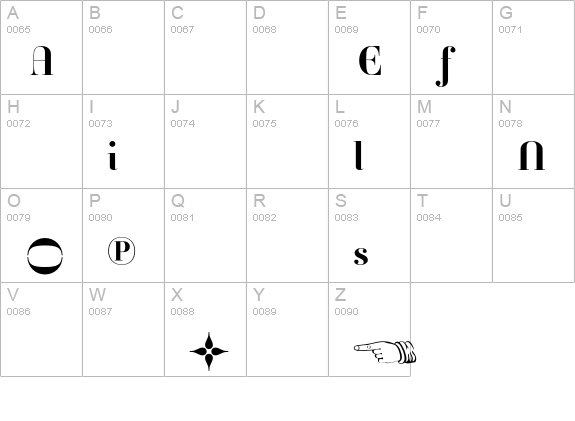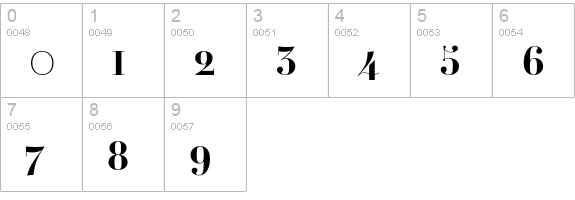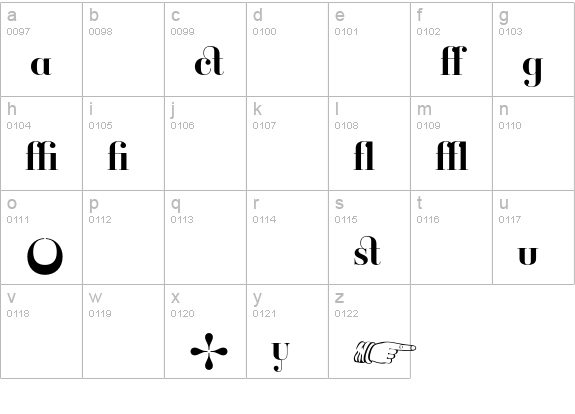
Ambroise Alternates Demi Font Details
Ambroise Alternates Demi is a sub-bold, structured variant in the Ambroise typeface family \xE2\x80\x94 well suited to sub-headlines and emphasised passages.
Ambroise Alternates Demi font exudes sophistication and elegance with its sleek and modern design. The bold and distinctive letterforms make a strong statement, perfect for headlines, logos, and branding projects. The font's clean lines and sharp edges give it a contemporary feel, while the subtle alternates add a touch of uniqueness. What sets Ambroise Alternates Demi font apart is its versatility - it can be used for a wide range of design projects, from editorial layouts to packaging designs. Its strong presence on the page commands attention and makes a lasting impression. Best of all, Ambroise Alternates Demi font is available for free download at FontsMarket.com. This means you can easily access this high-quality font for all your design needs without breaking the bank. Don't miss out on this fantastic opportunity to enhance your projects with the timeless appeal of Ambroise Alternates Demi font.